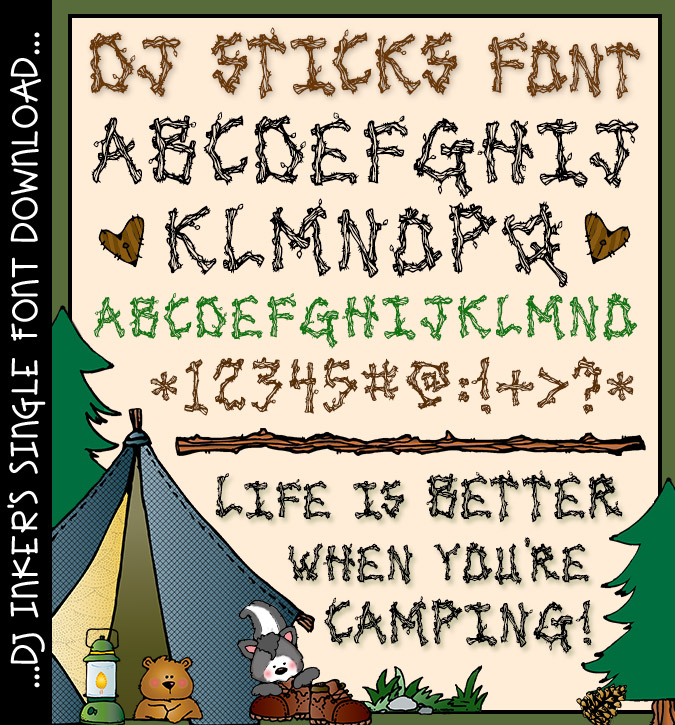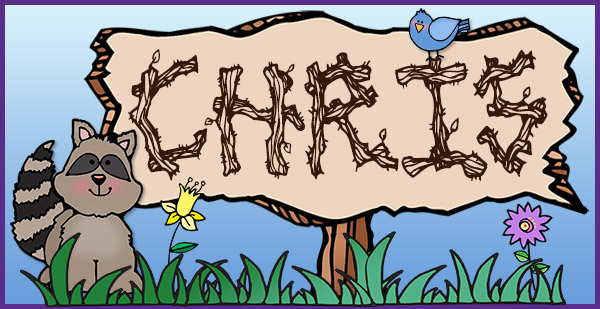
DJ Sticks Font Download
Make your words feel warm and woodsy with our whimsical DJ Sticks font. Build a smile for summer camp, cabins, mountain and forest themed classrooms, Father's Day or any outdoor activity.
This headline font looks best in large sizes in black or dark brown. Included in open type format with easy installation instructions and basic  Spanish characters!  MAC & PC/Windows compatible. Hand drawn lettering by Dianne J Hook © DJ Inkers.